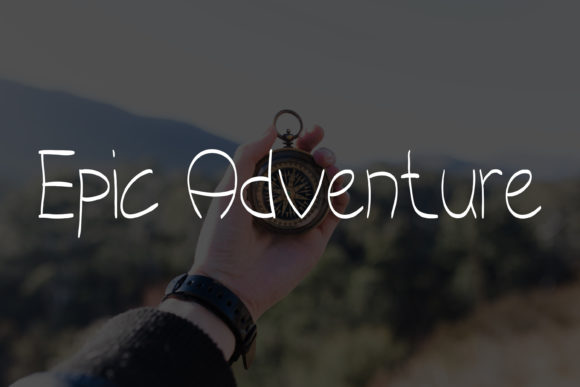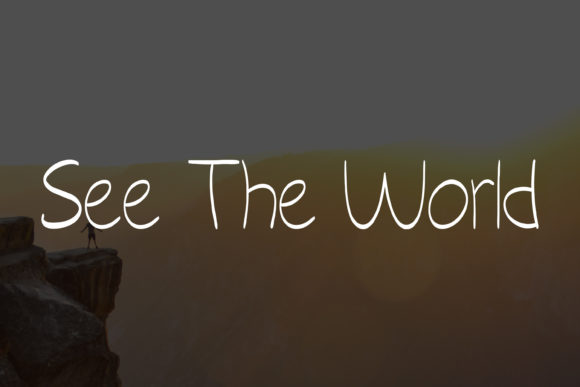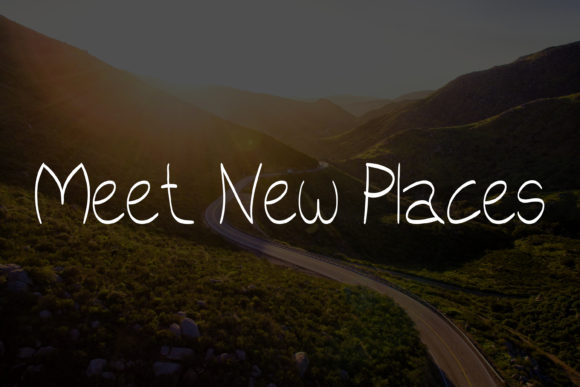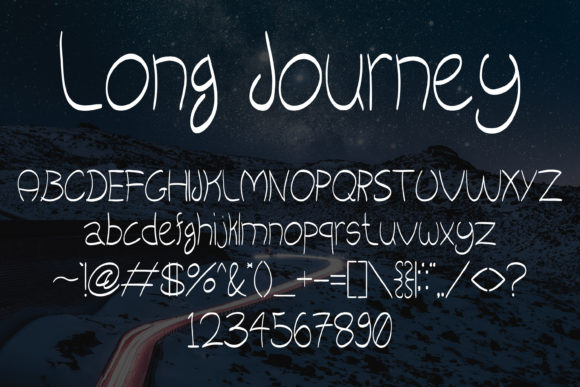
Long Journey Font
About Long Journey Font
Long Journey is a simple and cute handwritten font that adds a touch of charm and whimsy to your designs. With its thin and round letterforms, this font exudes a sense of playfulness and joy. Whether you’re creating greeting cards, invitations, social media graphics, or any other project, Long Journey instantly brings a cheerful and lively vibe.
The simplicity of Long Journey allows it to work well with a variety of design styles and themes. Its clean and legible appearance makes it versatile and adaptable, making it suitable for both modern and whimsical designs. Whether you’re going for a minimalist and contemporary look or a fun and lighthearted aesthetic, Long Journey adds a touch of cuteness and brightness to your designs.
This font is particularly well-suited for designs that aim to evoke a sense of adventure and exploration. Its handwritten style gives a personal and relatable touch, making it perfect for travel-themed designs, inspirational quotes, or even children’s book illustrations. Long Journey captures the spirit of curiosity and discovery, adding an element of excitement to your visual communication.
Furthermore, Long Journey works well for digital designs and social media content. Its legible letterforms ensure that your text remains clear and readable, even in smaller sizes. Whether you’re designing Instagram posts, blog graphics, or website banners, Long Journey brings a playful and eye-catching element to your digital presence.
In conclusion, Long Journey is a simple and cute handwritten font that adds a touch of whimsy and brightness to your designs. Its thin and round letterforms make it versatile and adaptable to various design styles. Embrace the playful and adventurous nature of Long Journey and let it bring joy and excitement to your creations.